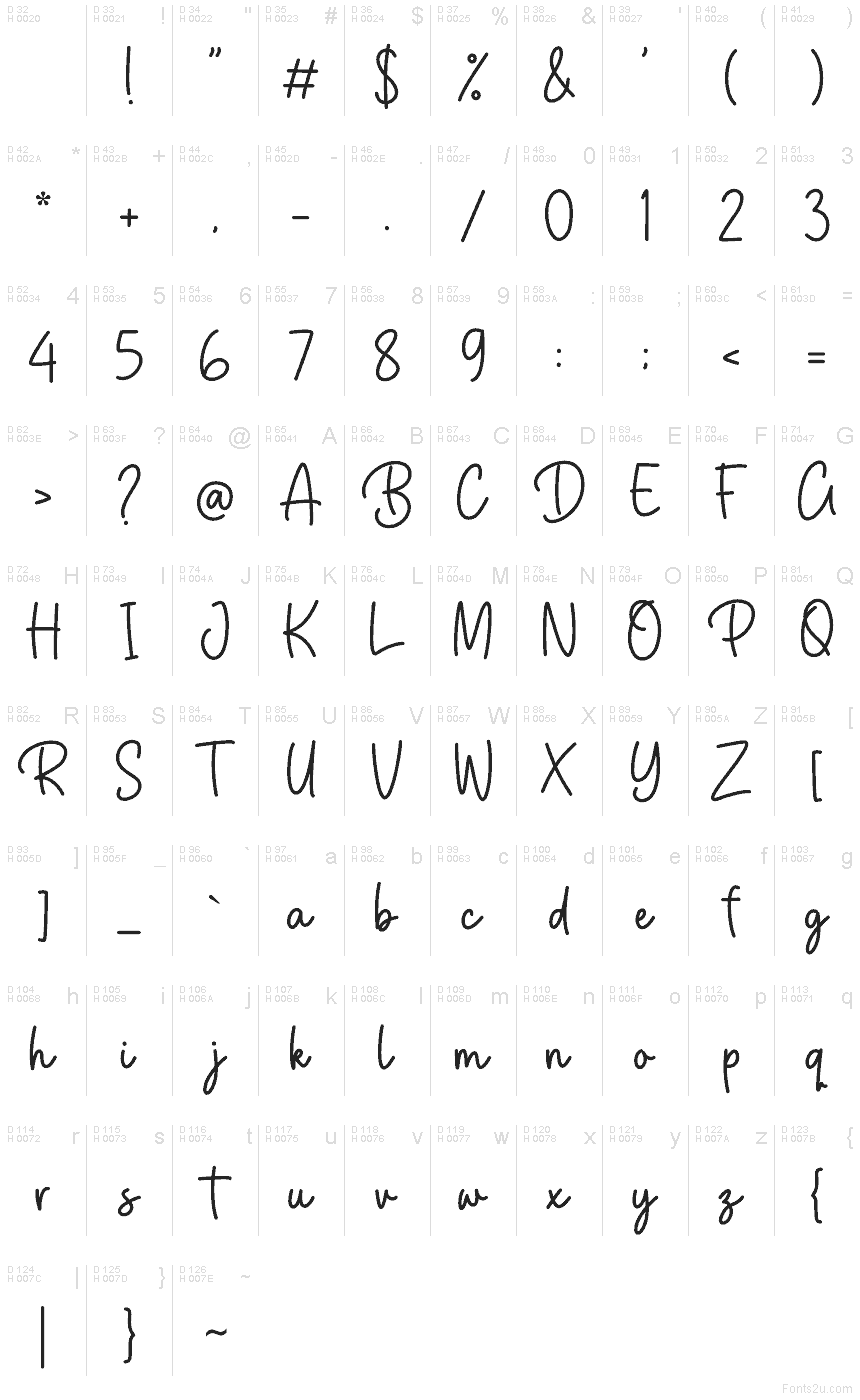
Royal Brand
Royal Brand font by Heinzel Std is a free handwritten script typeface that captures the ease of a fast, confident signature. Its smooth, looping strokes and consistent ink-like weight feel casual yet polished, giving logos and headlines a personal touch without looking messy or childish. The letters link in a gentle rhythm that’s easy to read even at smaller sizes, so your message still feels clear inside all that stylish flourish.
Using Royal Brand, this free font shines on boutique branding, product packaging, social media graphics, inspirational quotes, invitations, and blog headers. It brings a relaxed luxury vibe to anything that needs to feel both friendly and refined. Pair it with a clean sans serif for body text and let Royal Brand handle names, titles, and short phrases at larger sizes to keep that handwritten charm front and center.